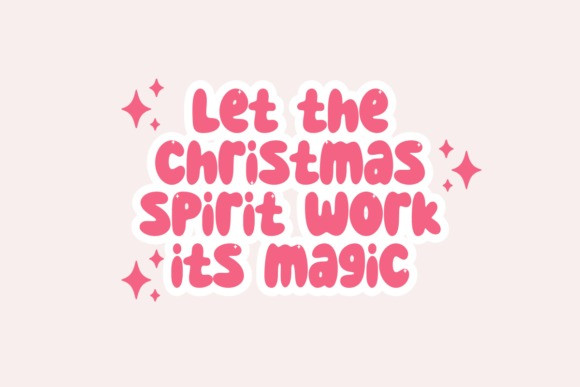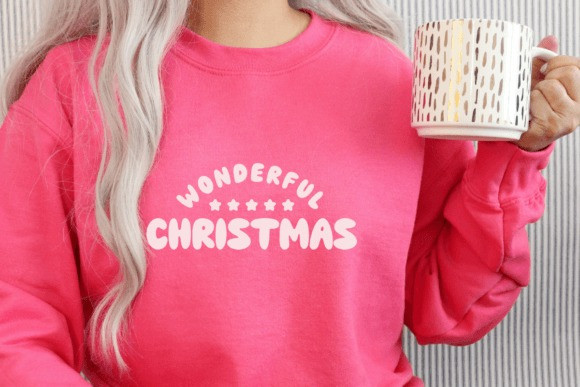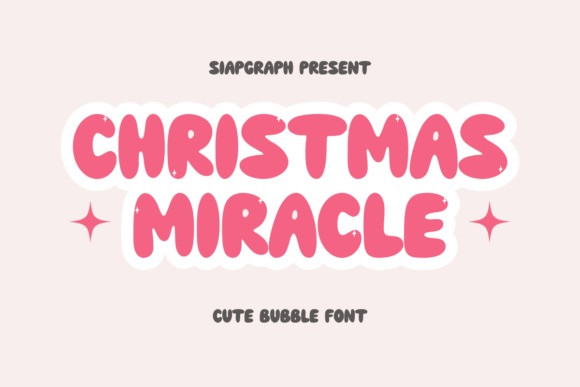
Christmas Miracle Font
Christmas Miracle Font is a cheerful and playful bubble-style typeface that captures the magic of the holiday season. With its soft, rounded letters and festive charm, this font is perfect for Christmas cards, holiday crafts, social media posts, and seasonal branding. Bring joy and warmth to your designs with this adorable font!